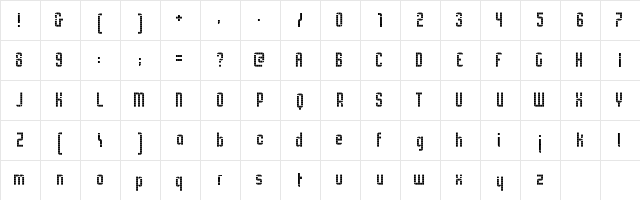
u11 Regular
u11 takes a measured approach to typography — its balanced proportions and neutral character make it a reliable workhorse for both digital and print work.